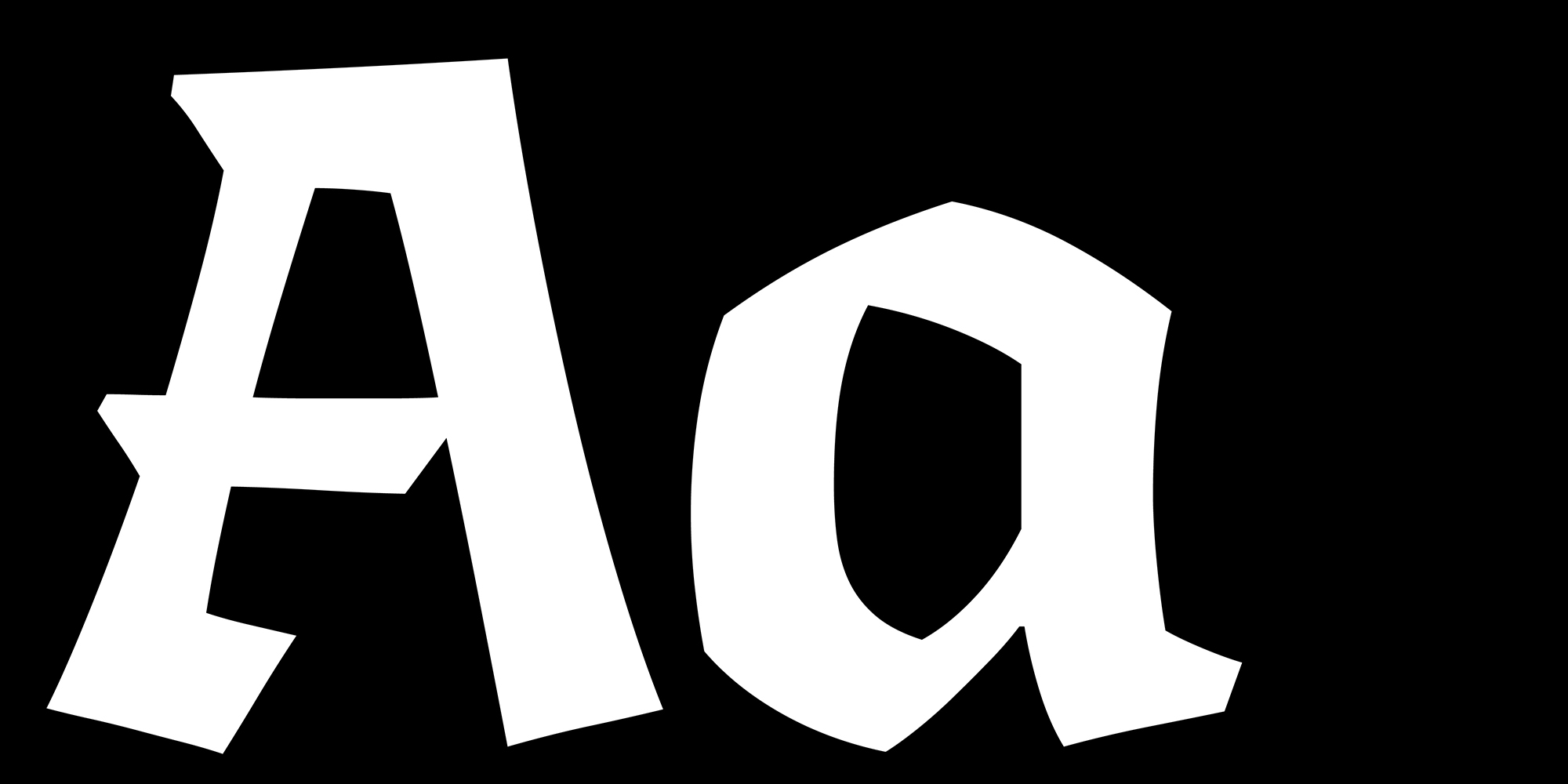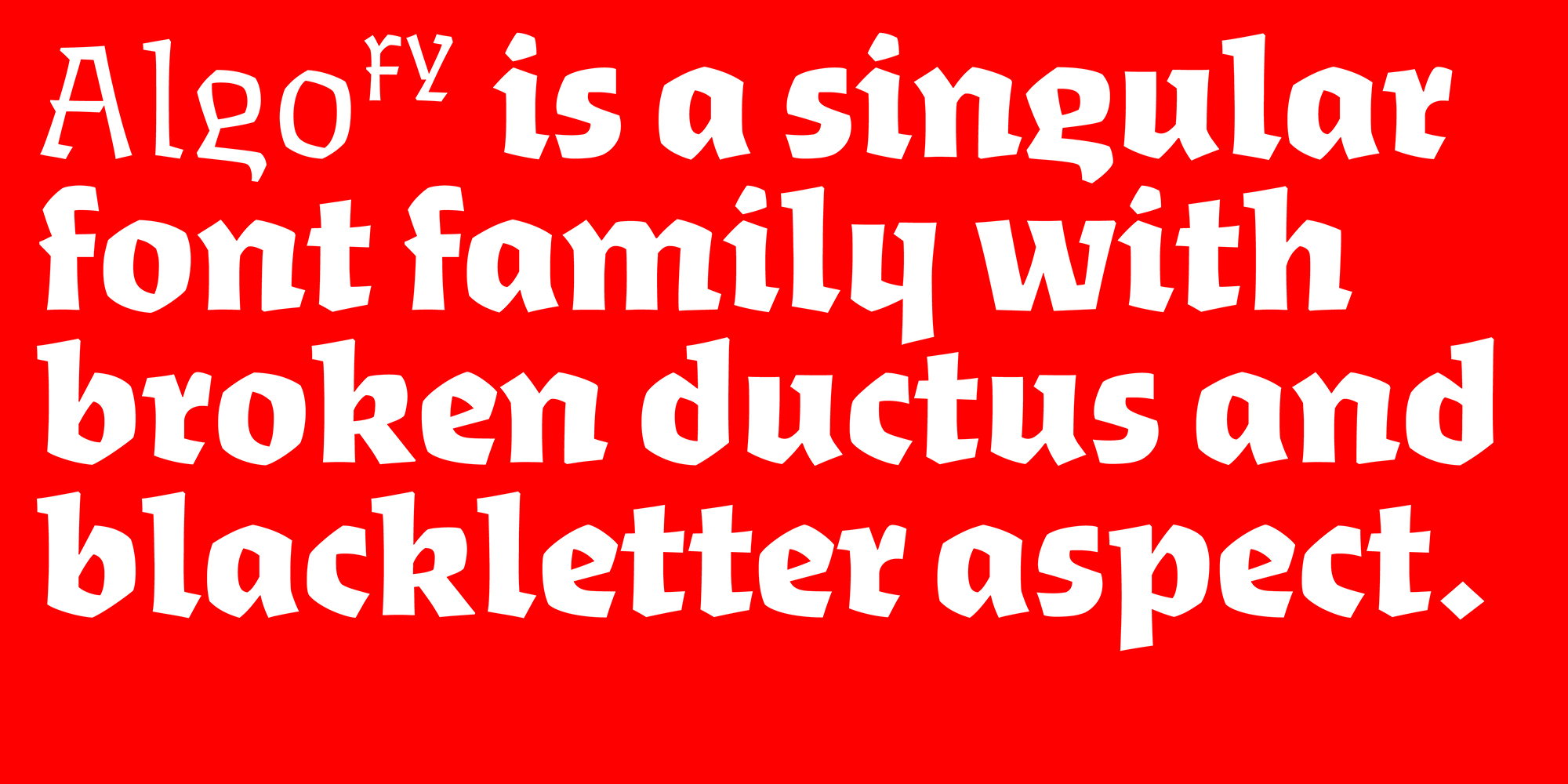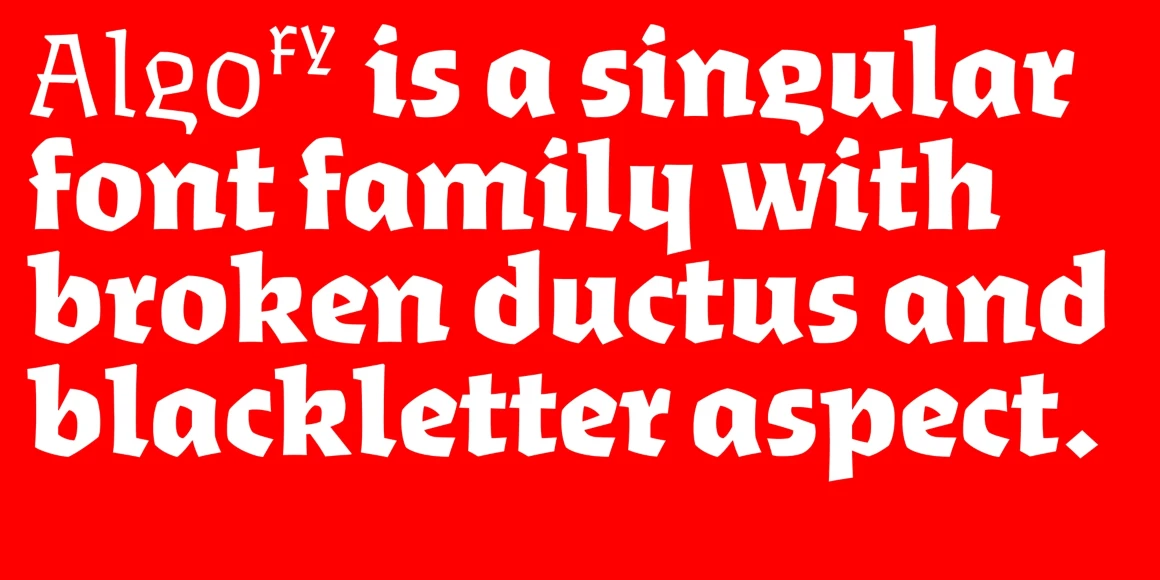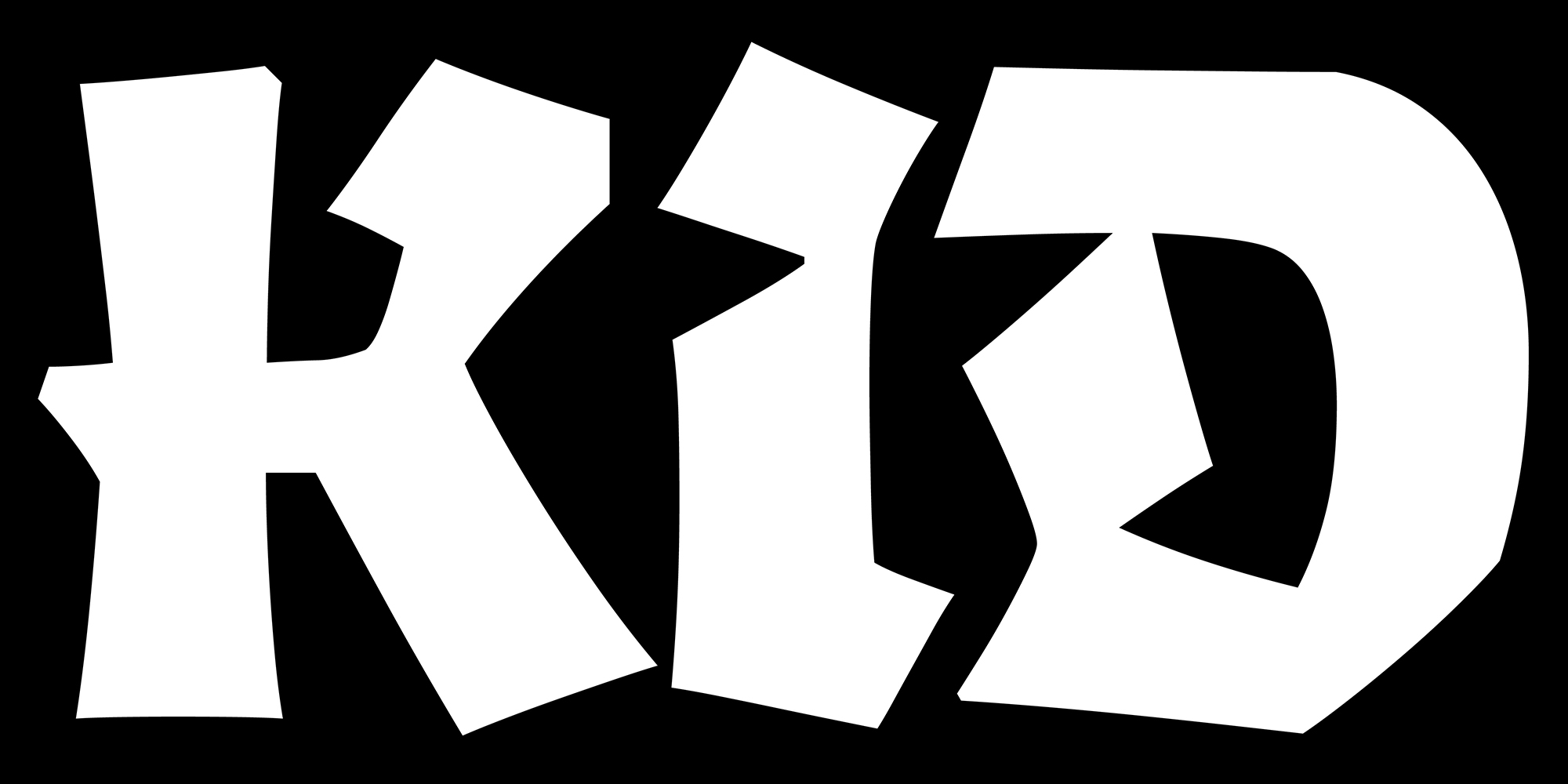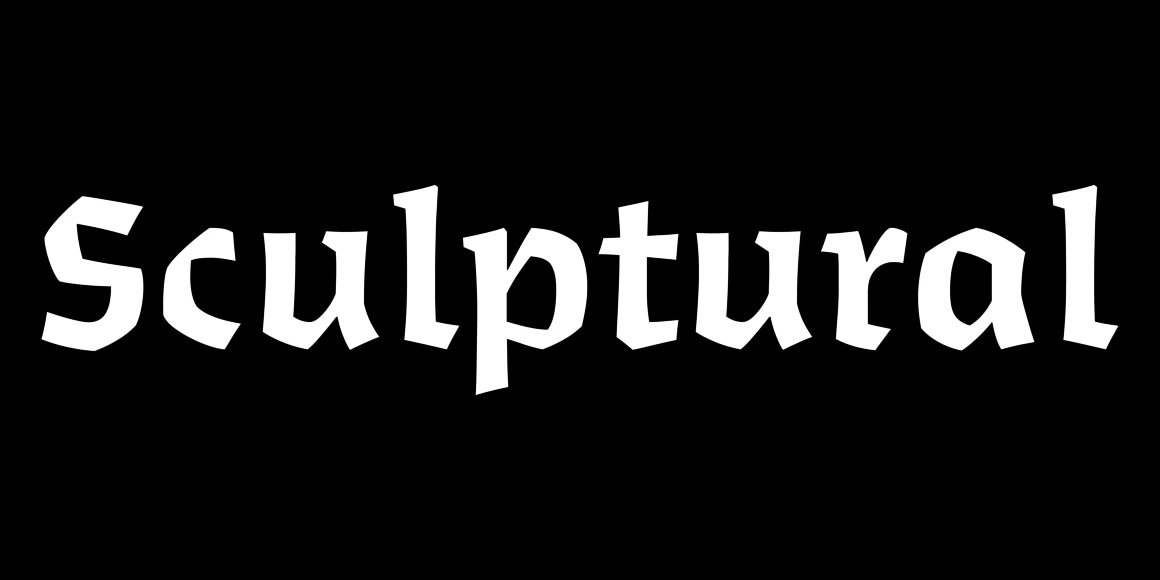
Algo
By Michel Derre & FONTYOU
Algo FY is a blackletter-inspired display serif blending broken ductus with calligraphic forms for a bold, sculptural presence. Available in three distinct weights: sculptural, rustic, and dynamic, it features differentiated in- and out-strokes along with alternating concave and convex curves, giving it a spontaneous, unpredictable rhythm. With an antique, mystical aura, it’s perfect for fantasy or medieval themes. Seen in use for Fantasy Zombicide games titles, cards, manuals, and logo.